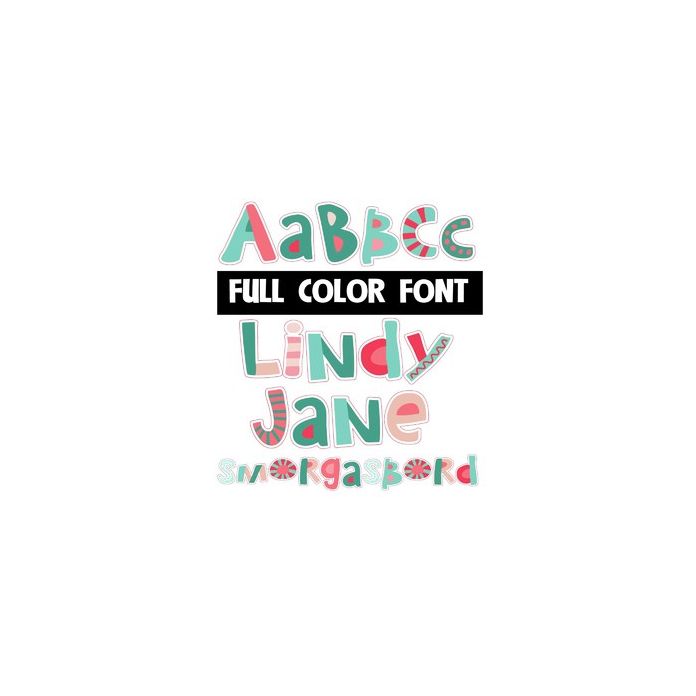
This full-color font features aqua and pink colorful, patchwork lettering with kisses and hearts throughout. This font works best for titles, displays, posters and more. Please note color fonts will show as black in non compatible programs. This font type is compatible with Silhouette Studio